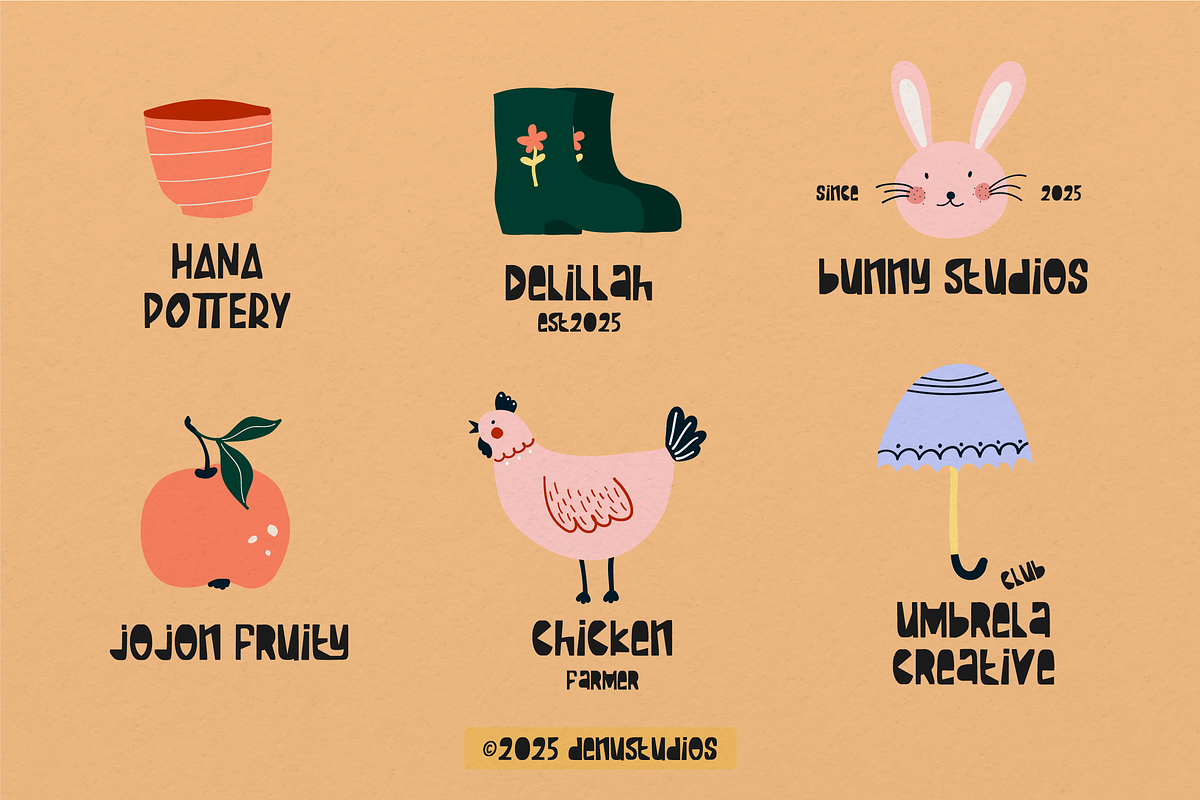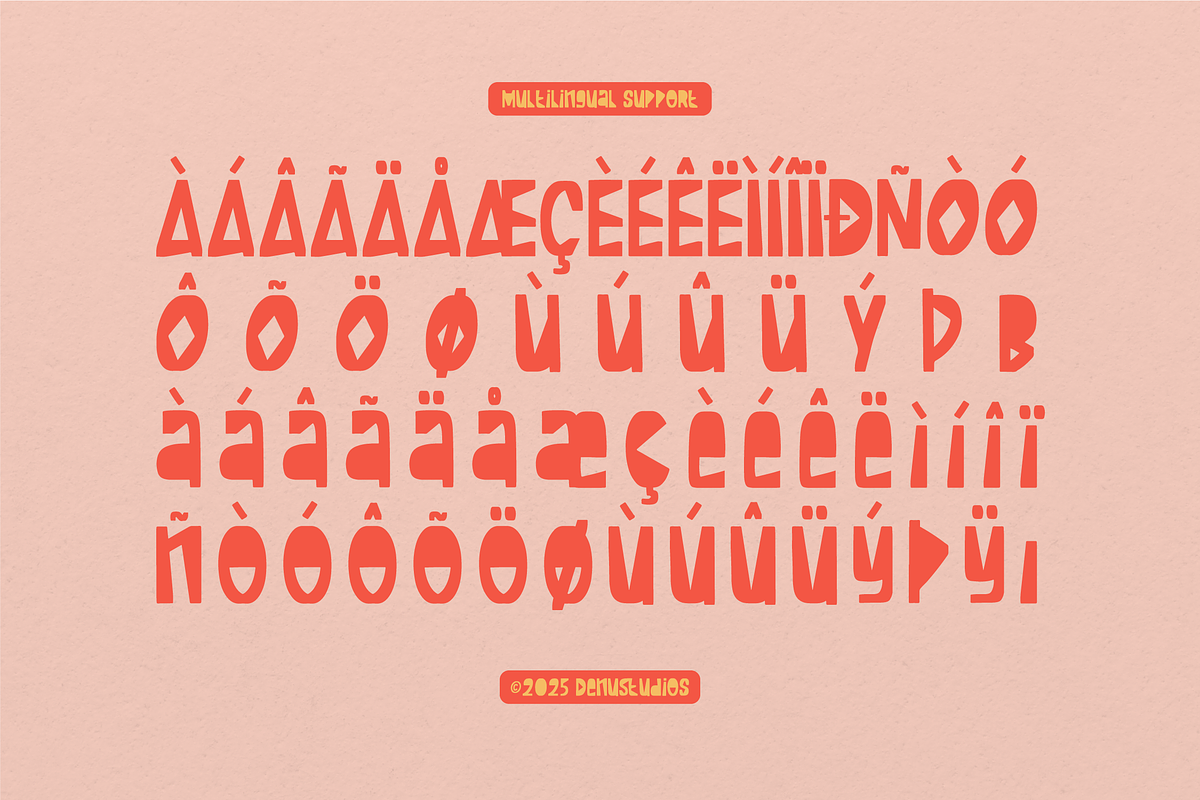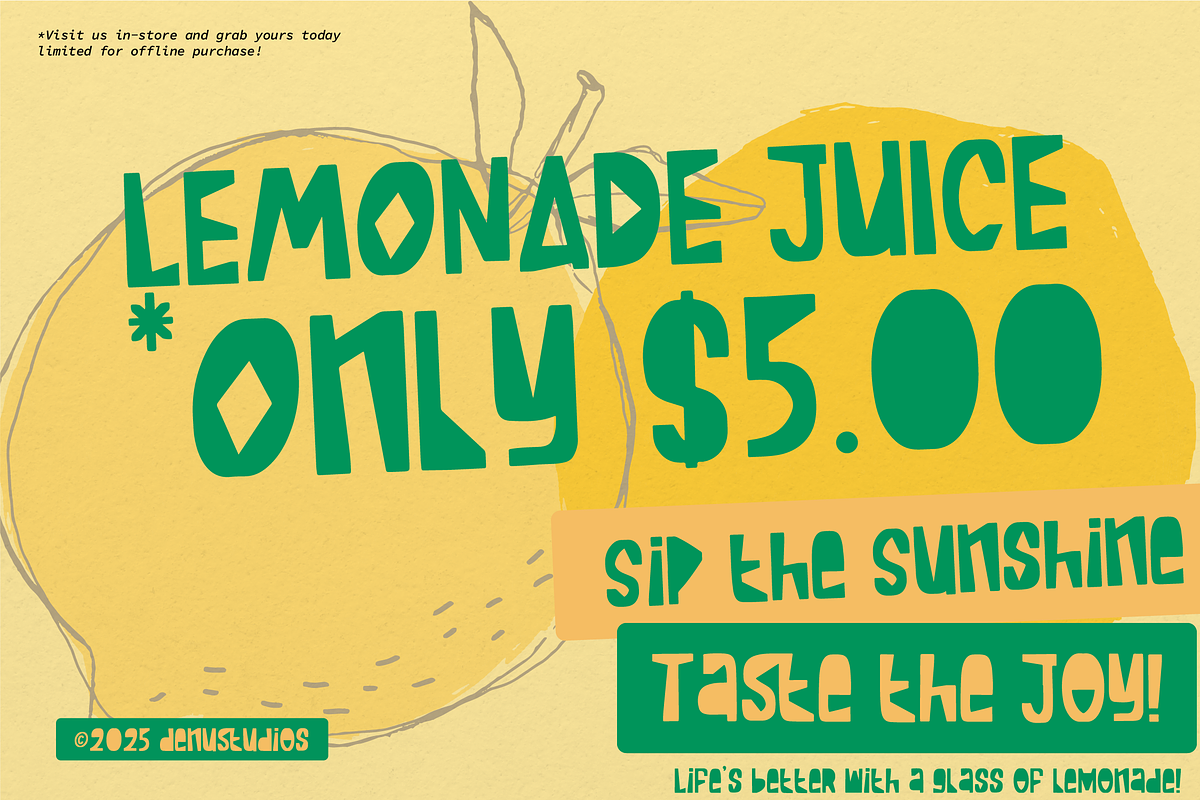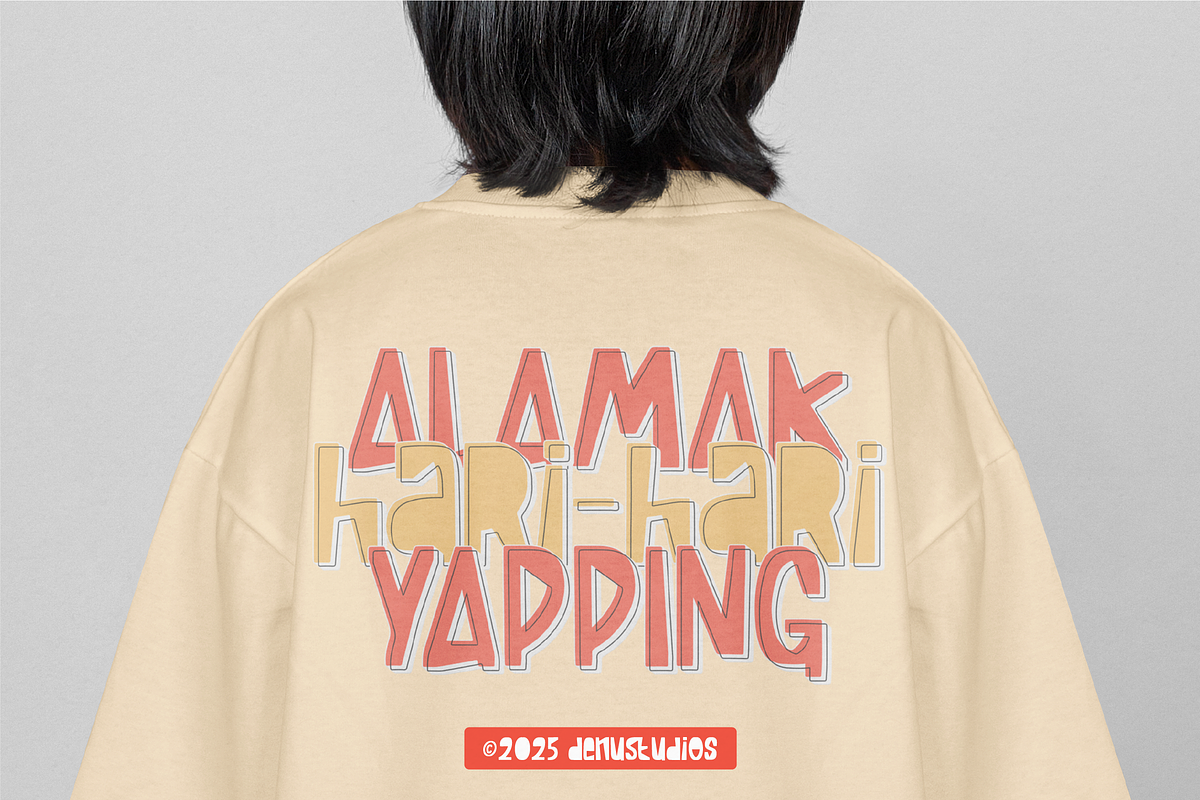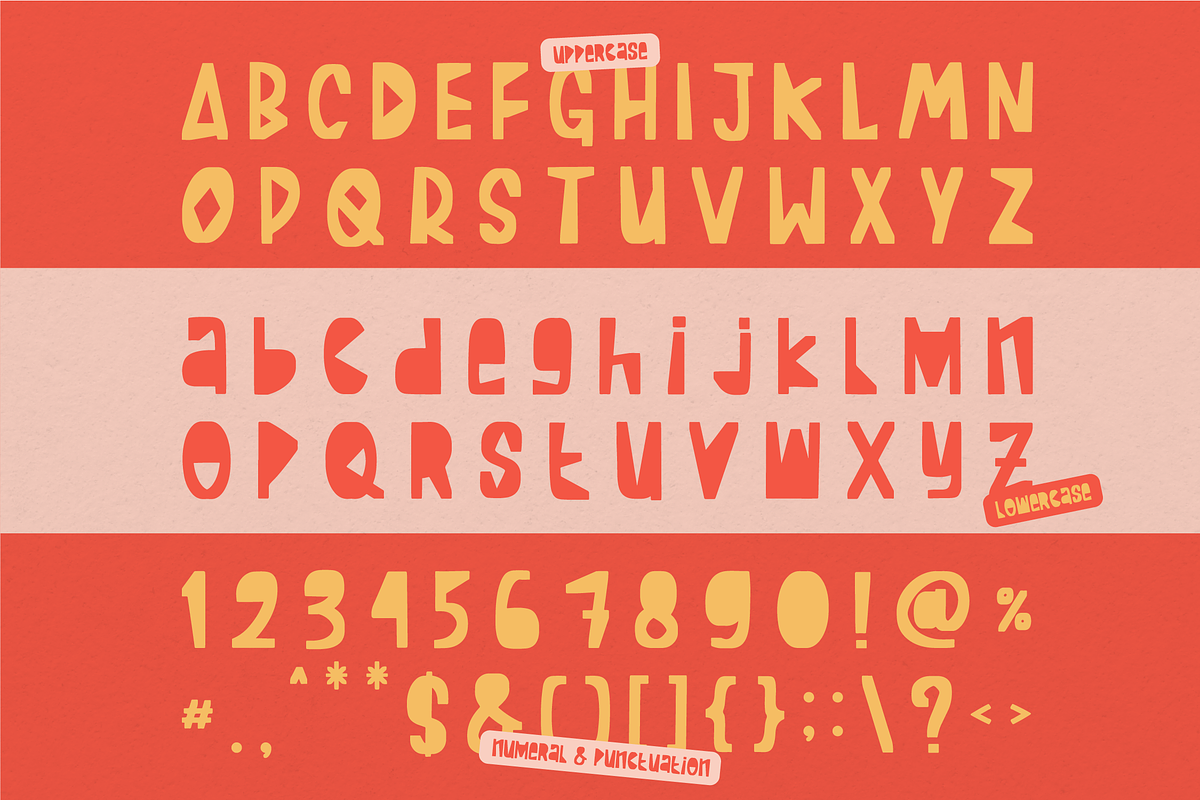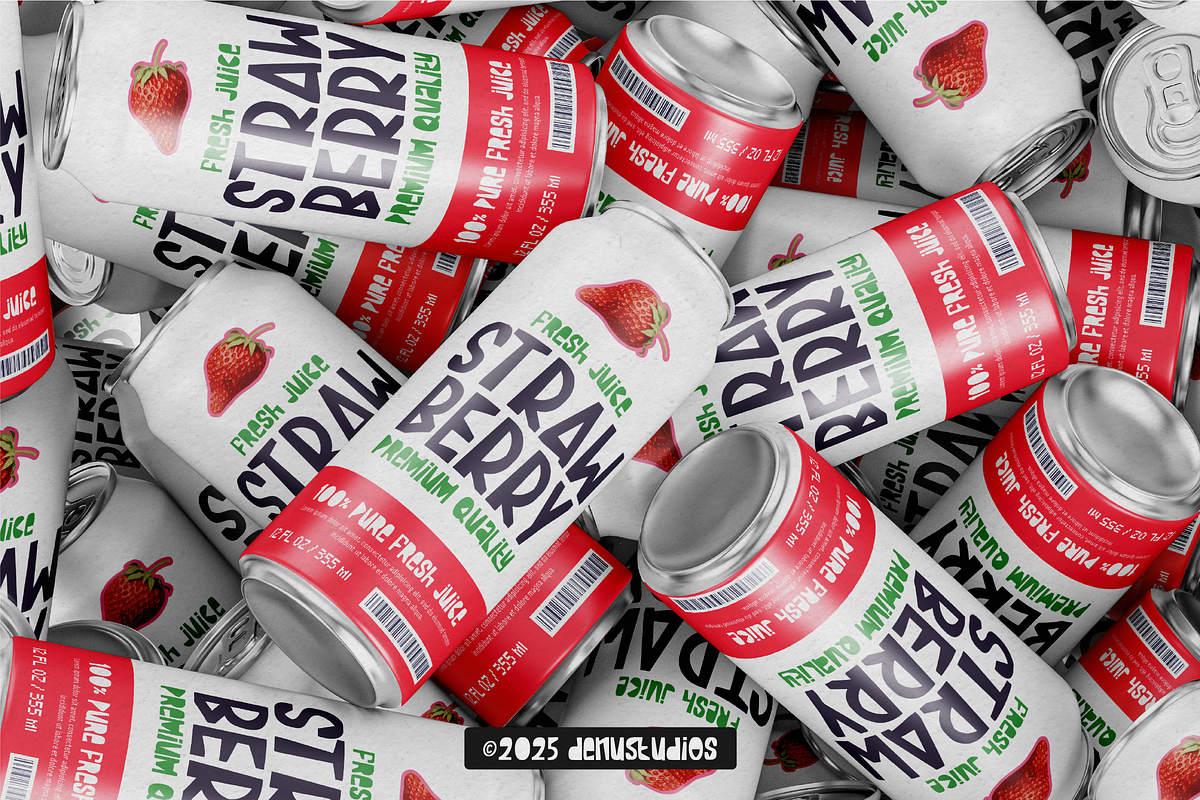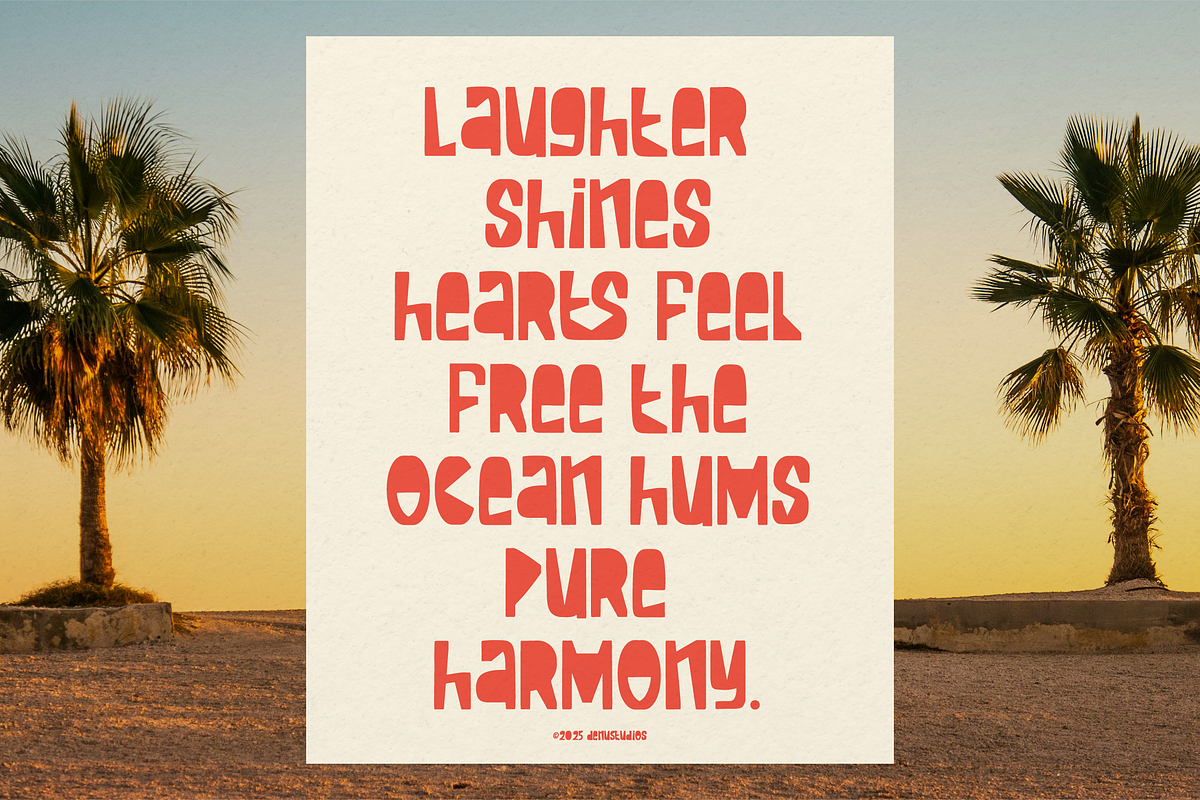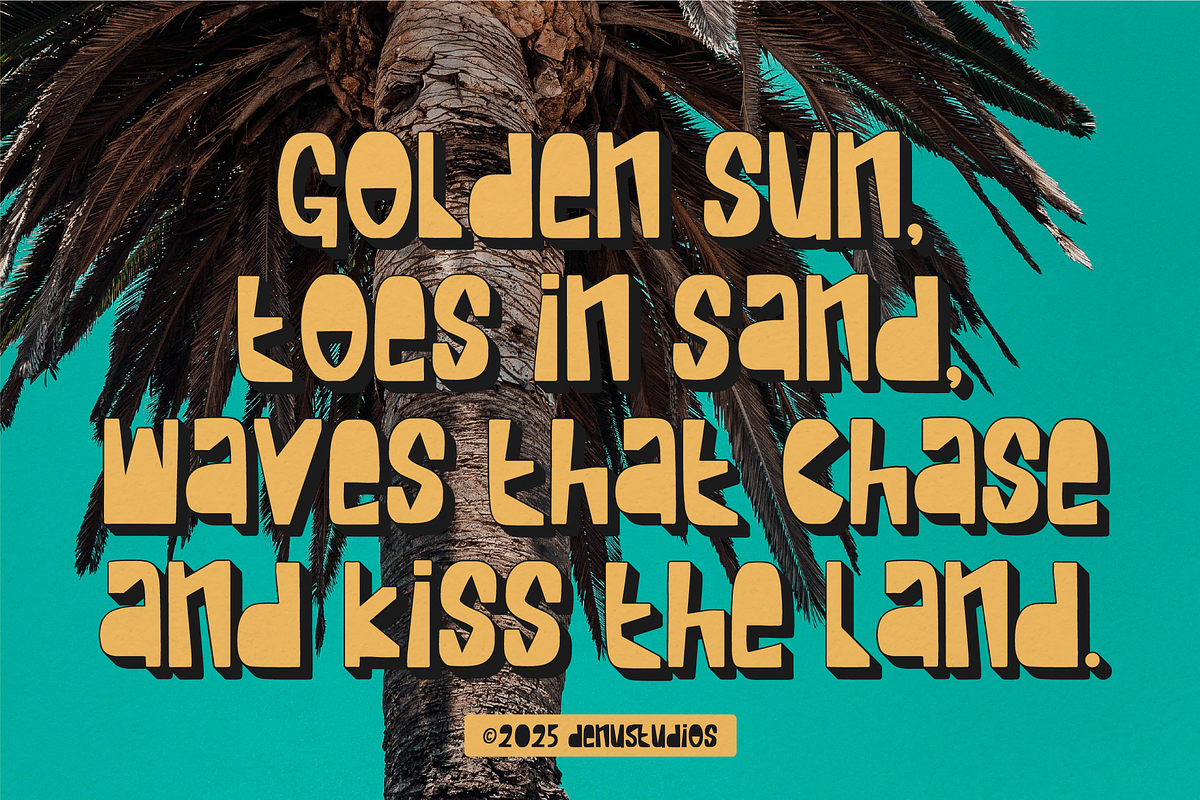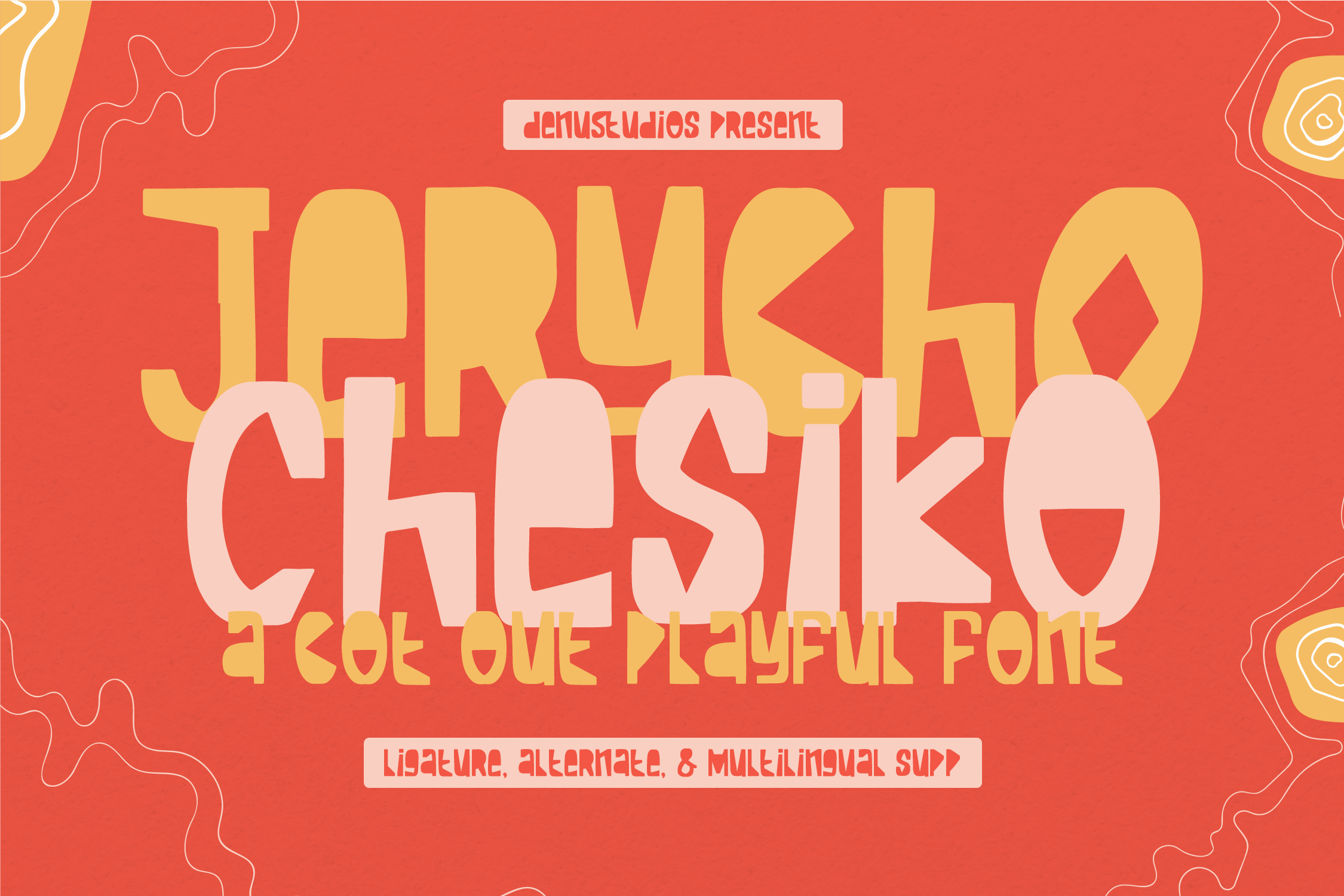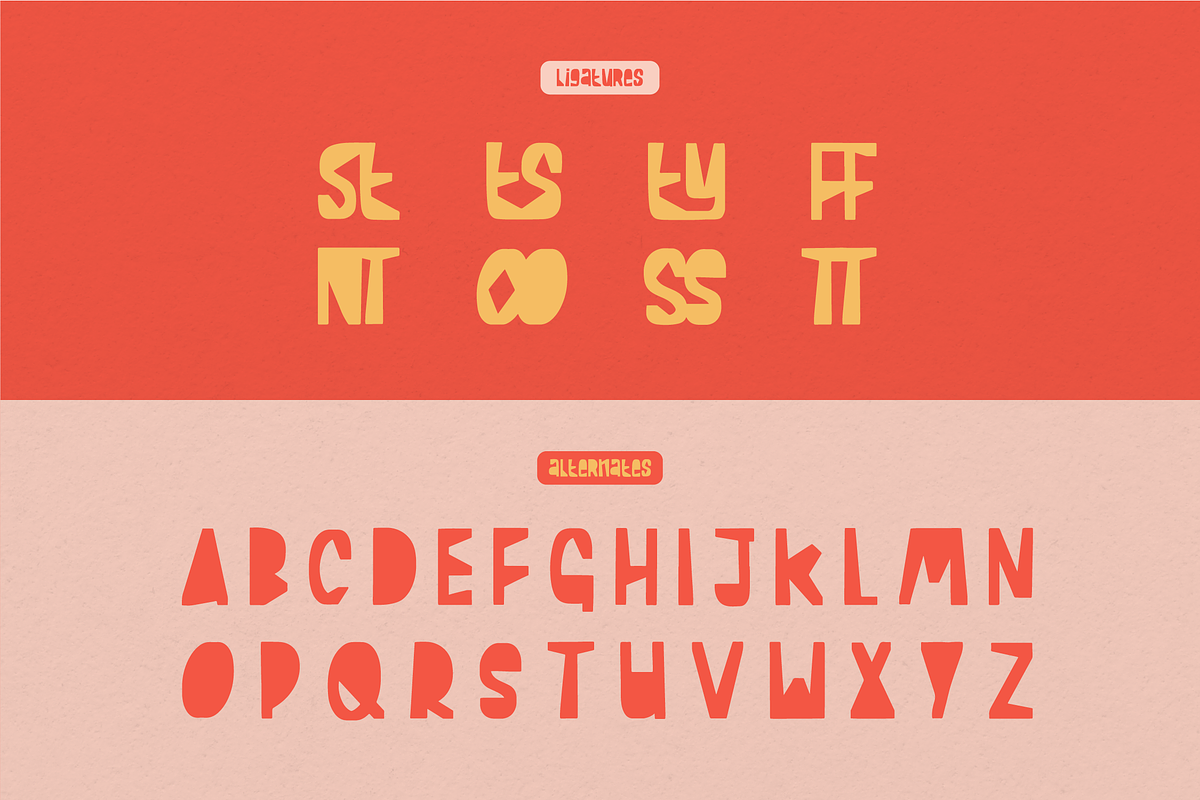
Jerycho Chesiko | Playful Font
Jerycho Chesiko | Playful Font, from Denustudios, suitable for any projects such as: logos, branding projects, homeware designs, product packaging, mugs, quotes, posters, shopping bags, t-shirts, book covers, name card, invitation cards, greeting cards, label, photography, watermark, special events, and all your other lovely projects that need a Playful Font taste.